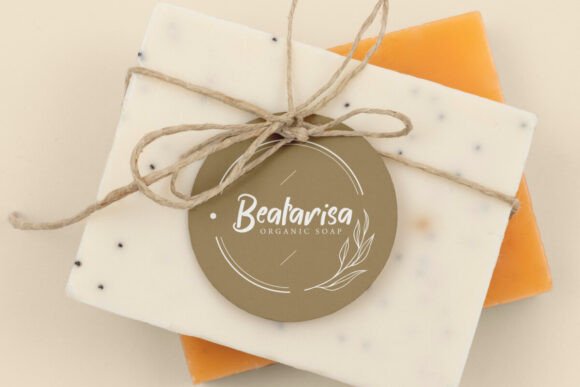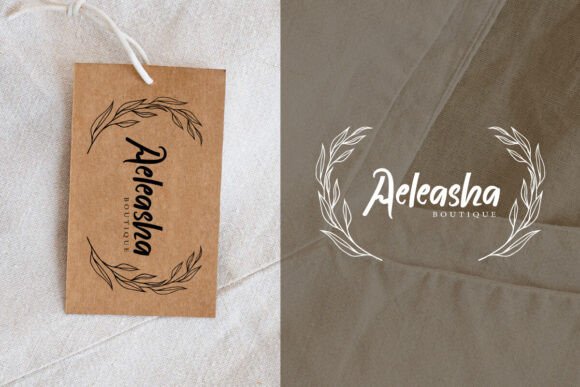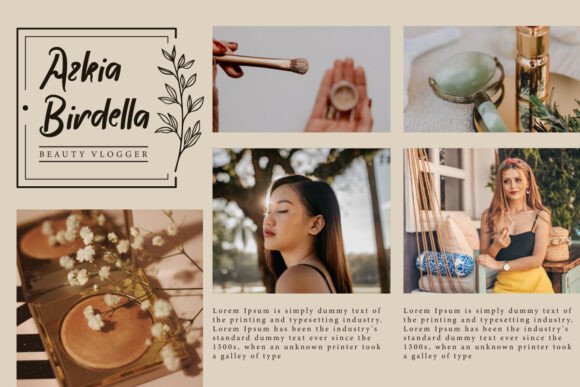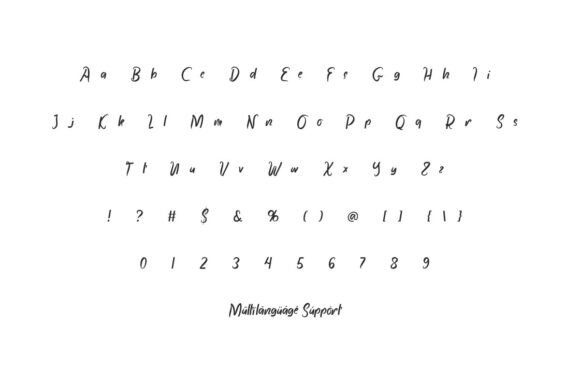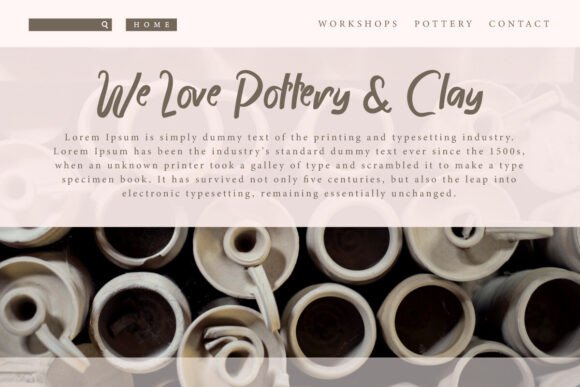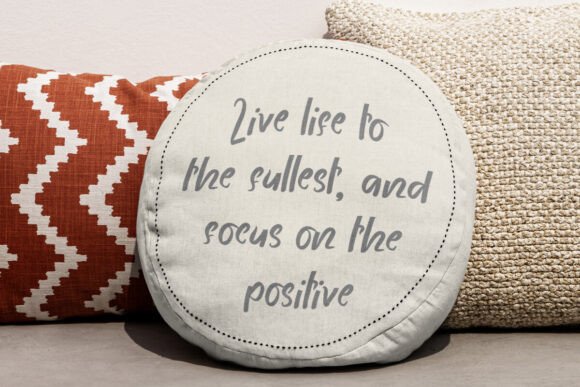
Cinnamon Blossoms Font: The Perfect Addition to Your Design Arsenal
Are you a designer or crafter looking for a unique and eye-catching font to elevate your designs? Look no further than Cinnamon Blossoms Font, a curly handwriting display font that is sure to capture the attention of your audience. With its cute style and thick lines, this font is perfect for adding a personal touch to any design project.
What is Cinnamon Blossoms Font?
Cinnamon Blossoms Font is a carefully crafted font that boasts a distinctive and natural look, reminiscent of handwriting. Its curly and playful style makes it an excellent choice for designers who want to add a touch of whimsy to their designs. The font’s thick lines give it a unique texture that sets it apart from other fonts, making it perfect for creating visually appealing designs.
One of the best things about Cinnamon Blossoms Font is its versatility. This font can be used for a wide range of design projects, including:
- Brand logos: Create a memorable and eye-catching logo for your brand with Cinnamon Blossoms Font.
- Brochures: Add a personal touch to your brochures with this unique font.
- Business cards: Stand out from the crowd with custom business cards featuring Cinnamon Blossoms Font.
- Custom designs: Use this font to create one-of-a-kind designs that reflect your personality.
- Frame art: Add a touch of elegance to your frame art with Cinnamon Blossoms Font.
- Invitations: Create beautiful and unique invitations for special occasions.
- Labels: Use this font to create custom labels for your products or gifts.
- Packaging designs: Elevate your packaging designs with Cinnamon Blossoms Font.
- Posters: Create eye-catching posters that grab attention.
- Quotes: Add a touch of inspiration to your quotes with this beautiful font.
- Screen printing: Use Cinnamon Blossoms Font for screen printing projects, such as t-shirts and tote bags.
- Signage: Create visually appealing signage with this unique font.
- Stationery: Add a personal touch to your stationery with Cinnamon Blossoms Font.
- Websites: Use this font to create a unique and memorable website that stands out from the crowd.
Why Choose Cinnamon Blossoms Font?
So, why should you choose Cinnamon Blossoms Font for your design projects? Here are just a few reasons:
- Unique and eye-catching: This font is sure to grab attention and set your designs apart from the crowd.
- Easy to read: Despite its curly and playful style, Cinnamon Blossoms Font is easy to read, making it perfect for a wide range of design projects.
- Versatile: This font can be used for a wide range of design projects, from logos and brochures to custom designs and website content.
- High-quality: Cinnamon Blossoms Font is a high-quality font that is designed to deliver exceptional results.
Tips for Using Cinnamon Blossoms Font
To get the most out of Cinnamon Blossoms Font, here are a few tips to keep in mind:
- Use it sparingly: While Cinnamon Blossoms Font is a beautiful font, it’s best to use it sparingly to avoid overwhelming your designs.
- Pair it with other fonts: Experiment with pairing Cinnamon Blossoms Font with other fonts to create a unique and visually appealing design.
- Adjust the size and color: Don’t be afraid to adjust the size and color of Cinnamon Blossoms Font to suit your design needs.